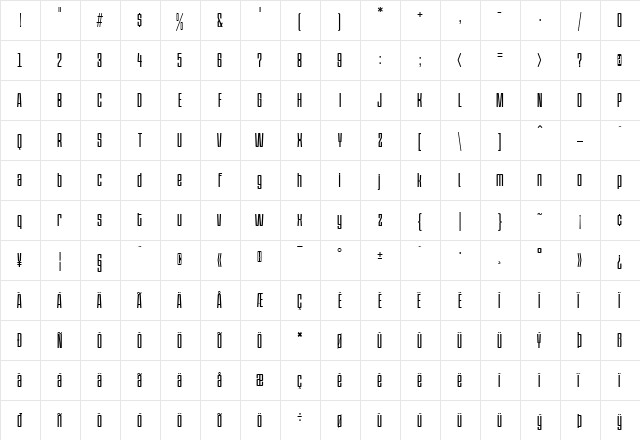
PC.DE Regular
| Foundry | Sergiy S. Tkachenko |
| Designer | Sergiy S. Tkachenko |
Design Context for PC.DE Typeface
PC.DE offers clean, dependable letterforms without strong stylistic allegiance, making it a practical choice for designers who need flexibility.